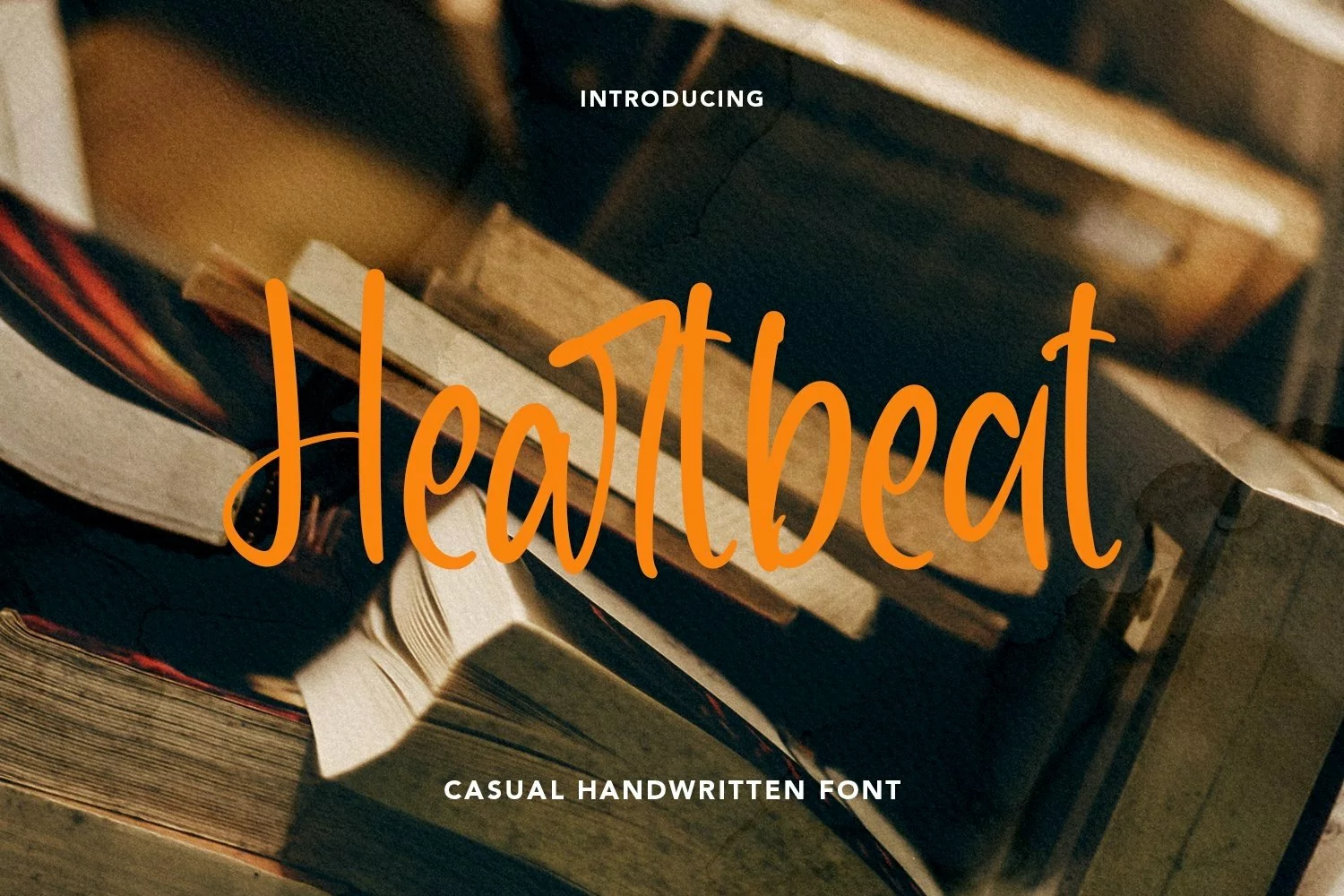
Heartbeat - Casual Handwritten Font that contain lowercase, uppercase, symbol, and also support multi language. There’s a lot ligatures in this font. This Font also comes with ligatures, alternates and many more. this font suitable for fashion, branding, catalog and other design what you want.